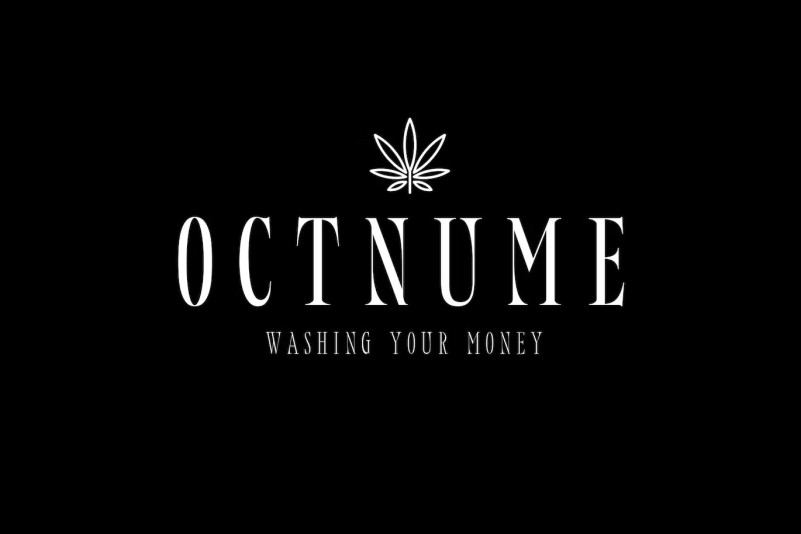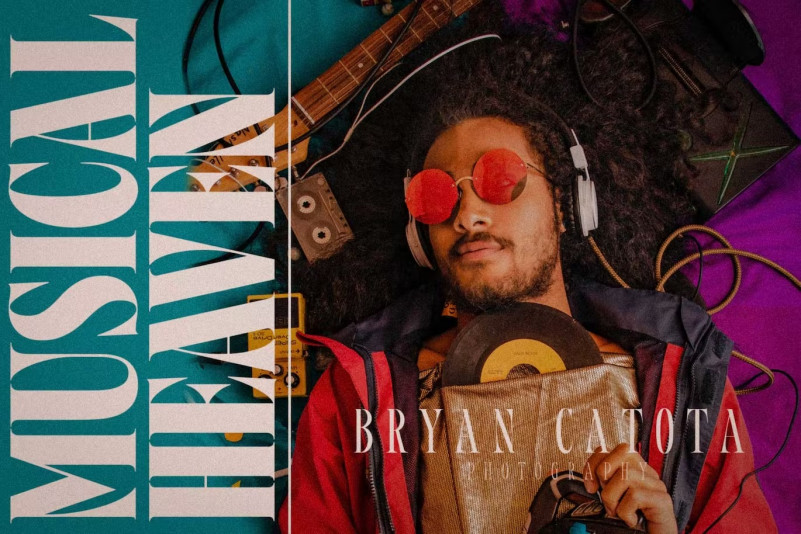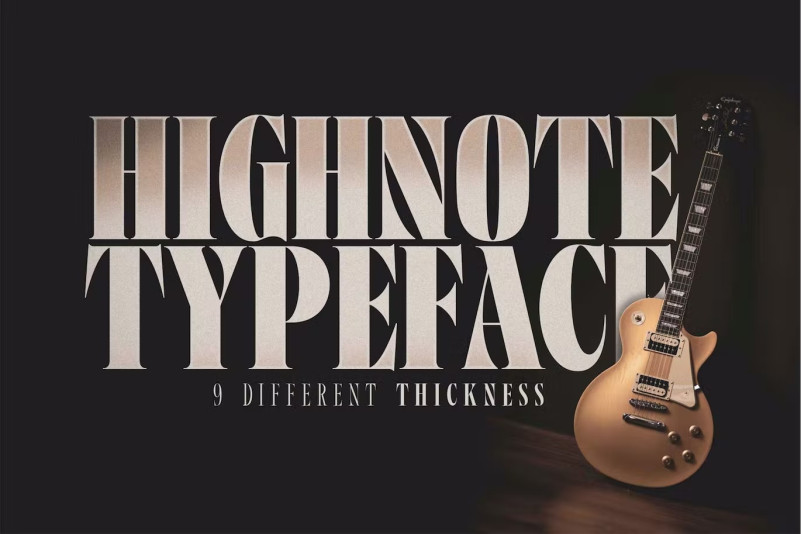
Highnote Font
Highnote Font, a classic, feminine and elegant style Serif display font combined with a beautiful alternative stylist. The font Highnote is perfect for various projects such as logos and branding, invitations, stationery, wedding designs, social media posts, advertisements, print quotes, product packaging, labels, etc. product designs, labels, photography, watermarks, special events or anything else.